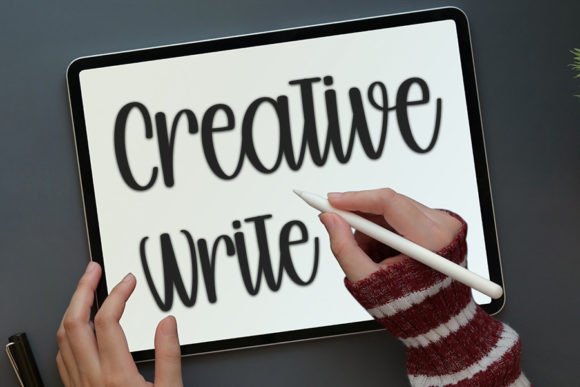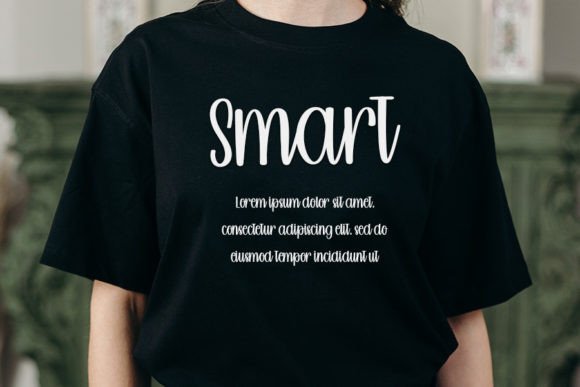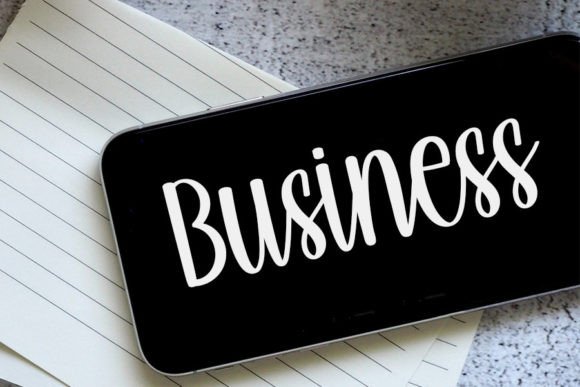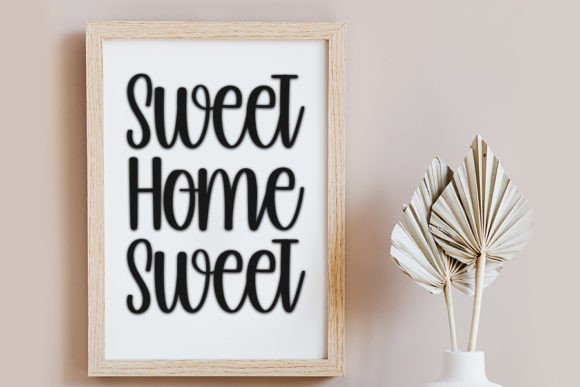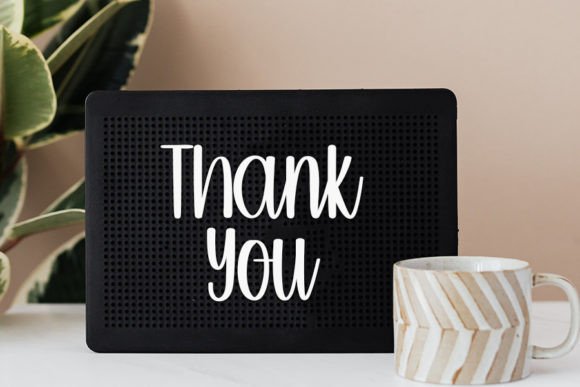
Homework Font
About Homework Font
Homework font is a neat and beautiful handwritten typeface that brings an elegant touch to any creative project. Its distinct and timeless style makes it a perfect choice for those looking to add warmth and sophistication to their designs. Whether you are working on invitations, branding, or social media content, Homework font helps your work stand out with a personal flair.
Clean and Elegant Handwriting Style
The appeal of Homework font comes from its smooth and balanced strokes that create a natural yet polished look. It blends simplicity with elegance, ensuring your text is clear and easy to read while adding a unique charm. This font works well across both modern and traditional design styles.
Versatile Applications for Homework Font
Homework fon is suitable for a wide range of projects, including:
• Wedding invitations and greeting cards
• Brand logos and business stationery
• Social media posts and marketing materials
• Personalized notes and letters
• Flyers, brochures, and print ads
Its versatility makes Homework fon effective in both print and digital formats, providing a consistent and stylish look across media.
Bringing Warmth and Personality to Your Designs
Using Homework fon infuses your designs with warmth and character. It helps create a connection with your audience by adding a personal, handwritten feel. The font’s refined style enhances your message while maintaining a friendly and approachable tone.
Reasons to Choose Homework Fon
• Neat and elegant handwritten style
• Clear and readable letterforms
• Versatile for various creative projects
• Adds warmth and personality
• Suitable for print and digital use
Final Thoughts on Homework Font
In conclusion, Homework fon is a neat and elegant handwritten typeface that fits perfectly with wedding invites, branding, social media, and more. Its timeless and personal style makes it a valuable choice for designers seeking sophistication and charm.